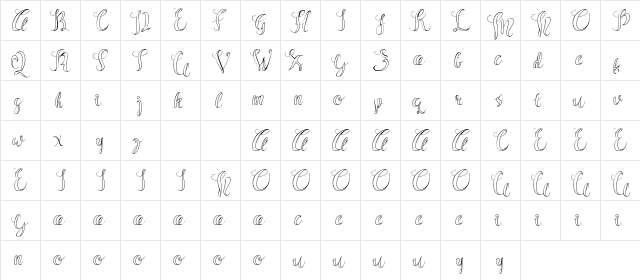
Sam Demo White Regular
| Foundry | Edric Studio |
| Designer | faizal fernanda |
Design Context for Sam Demo White Typeface
Sam Demo White is a composed and adaptable typeface that performs quietly and consistently across a wide range of design contexts.